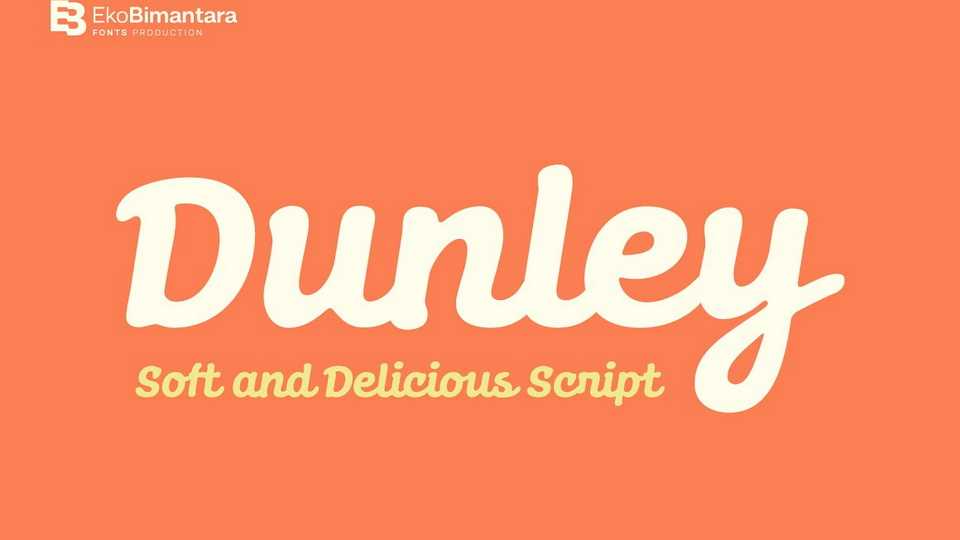
Download Dunley font, a soft script typeface that fits for various design purposes such as branding, large display, titling, logo, product and others.